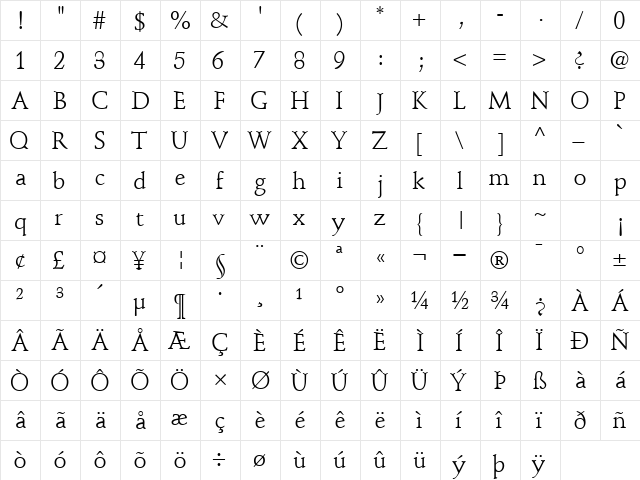
DeutchSSK Regular
Design Context for DeutchSSK Typeface
DeutchSSK offers clean, dependable letterforms without strong stylistic allegiance, making it a practical choice for designers who need flexibility.